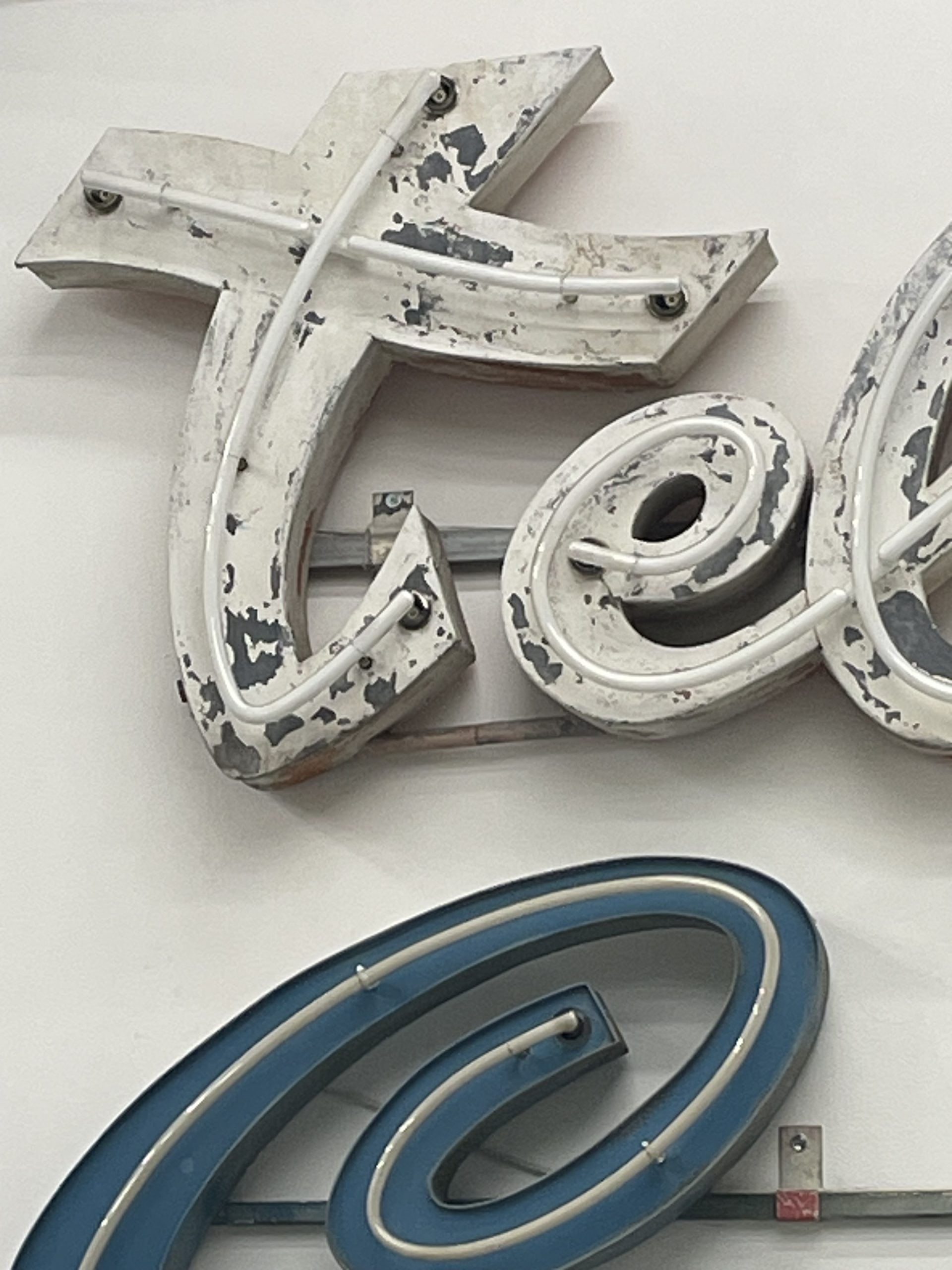
The concept of NOM(E)
For a long time Rita, Paulo, and I wanted to organize an exhibition together, one where we could put together our passion, care, and claim about the urgent need to preserve the typographic patrimony of our cities.
“NOM” represents the Catalan word for “NAME” while “NOME” signifies its Portuguese counterpart. This convergence forms the foundation of this typographic exhibition, merging Barcelona and Lisbon within a shared space. The installation features three beautiful and unique signs sourced from Letreiro Galeria. One proudly displays the Catalan name “Telma”, selected by Laura Meseguer, “Carlos” bears the Portuguese name, chosen by Rita Múrias, while “Joaquim Luis” contains both languages in one sign, and was selected together.
These distinct representations communicate in their native languages, each possessing its unique style and historical context. Yet, like the authors, they also share significant commonalities: a commitment to preserving the typographic heritage of our cities that also have a strong sense of identity, all encapsulated within a word or a name.
The signs
Telma, Hairdresser, n. d.
Av. de Roma, 98. Freguesia Parish de Alvalade, Lisboa, Portugal
Script lettering in sheet metal with a colorless glass tube, green fluorescent powder, and neon gas. Rescued without glass tubes and restored for this exhibition.
Carlos, Fashion, 1970
Rua 25 de Abril, 15. Lagoa. Algarve, Portugal
Script Lettering in sheet metal with a colorless glass tube with argon gas + mercury.
Joaquim Luís, Butcher, n.d.
Rua dos Heróis da Grande Guerra, 67. Caldas da Rainha, Portugal
Geometric sans serif iron lettering with chrome-plated metal inline.